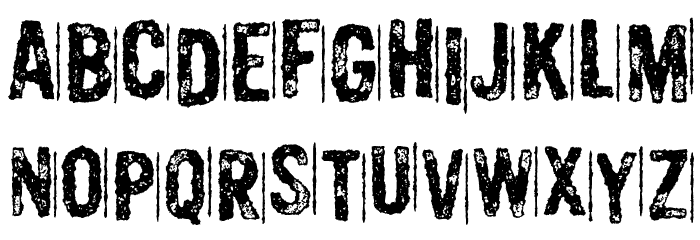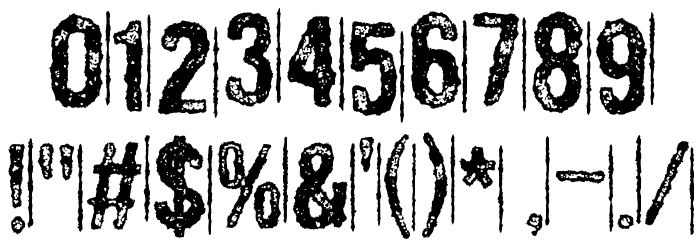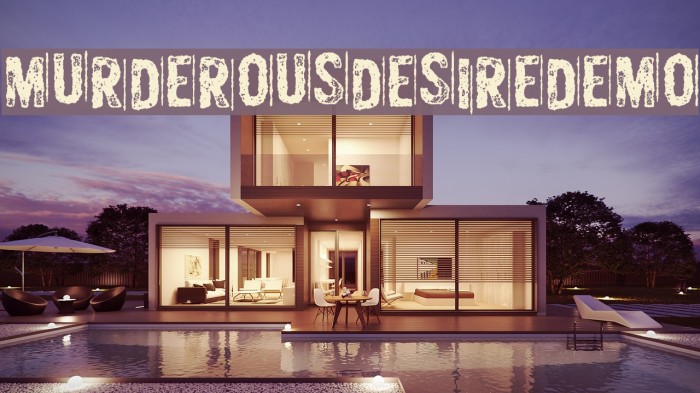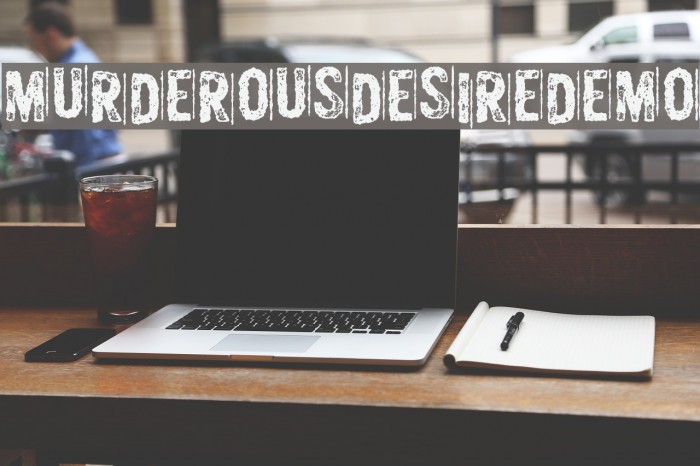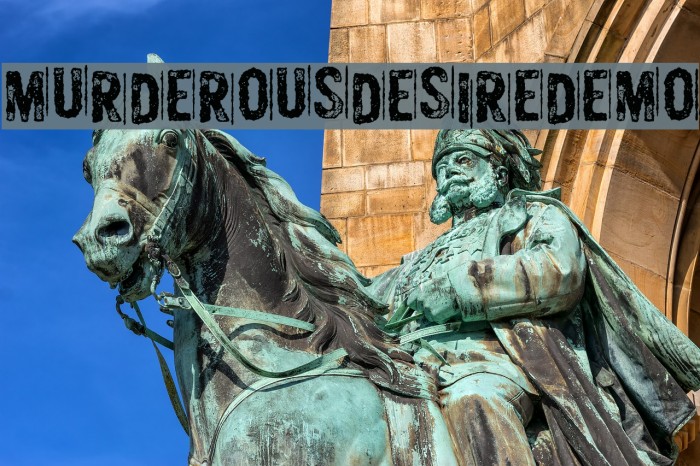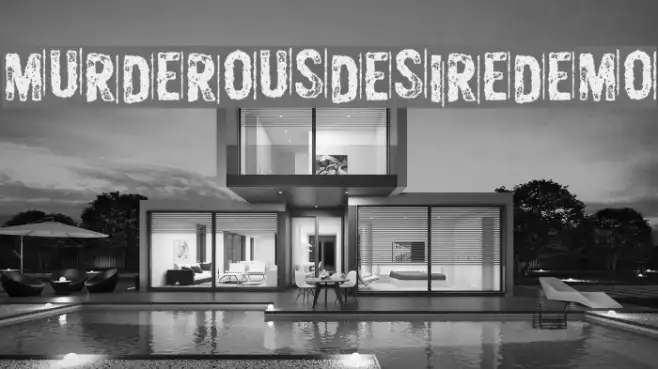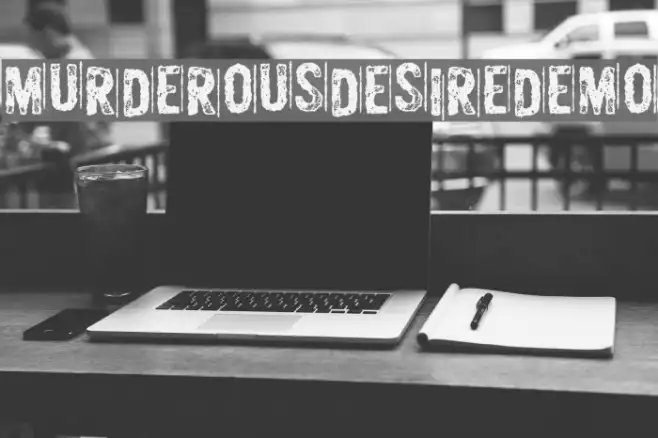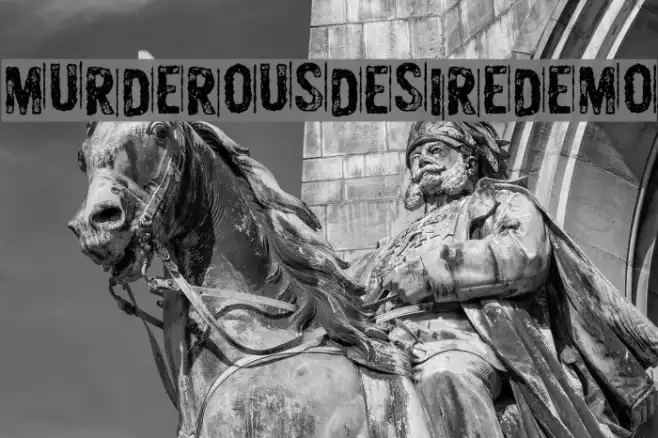
MurderousDesireDEMO Font
This font features a distressed, grunge style with a rough, textured appearance that gives it a raw and edgy feel. The characters are bold and uppercase, with a stencil-like quality that suggests a sense of urgency or rebellion. The uneven edges and irregularities in the letterforms contribute to its rugged aesthetic, making it ideal for projects that require a strong, impactful visual statement. The numbers and special characters maintain the same distressed look, ensuring consistency across all text elements. This font is perfect for designs that aim to convey a sense of chaos, intensity, or a gritty urban vibe.
A bold, distressed font with a grunge, stencil-like appearance.
- Proposed Projects: Ideal for album covers, posters, streetwear branding, and edgy editorial designs.
- Overall Style: Grunge, Urban, Edgy